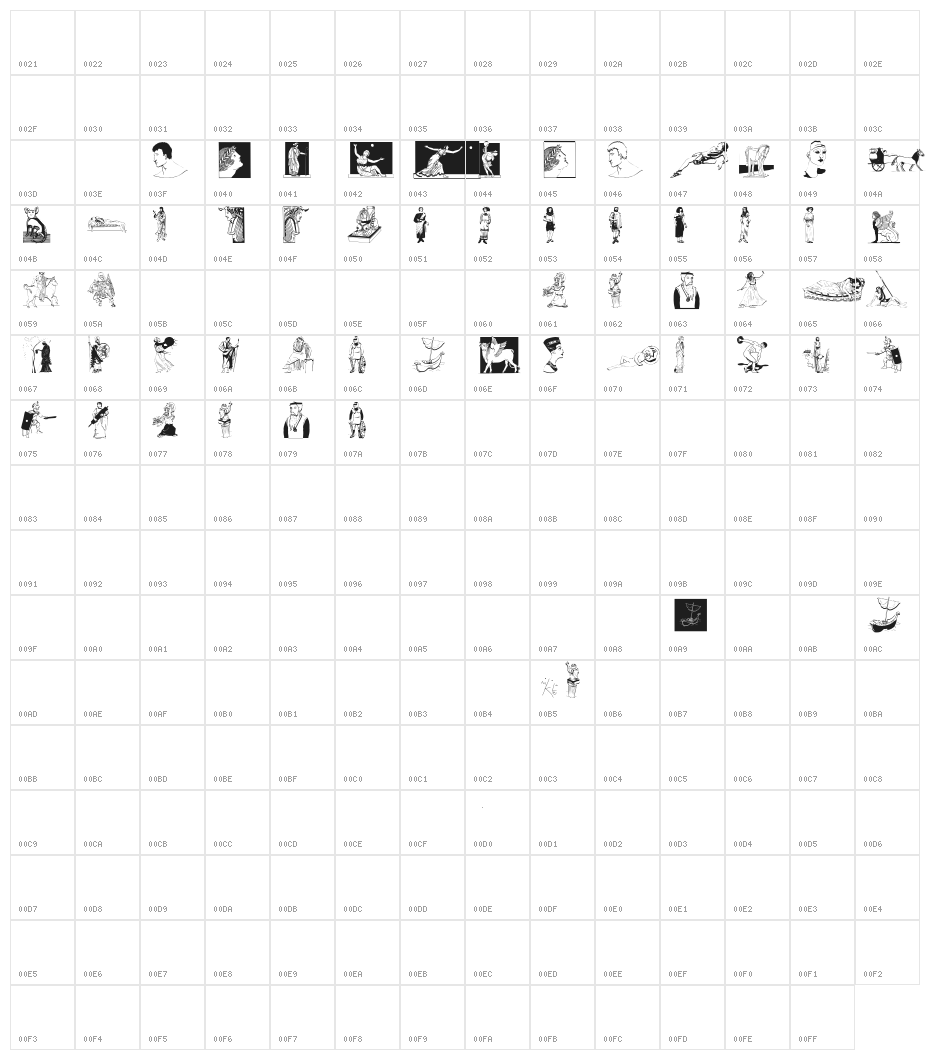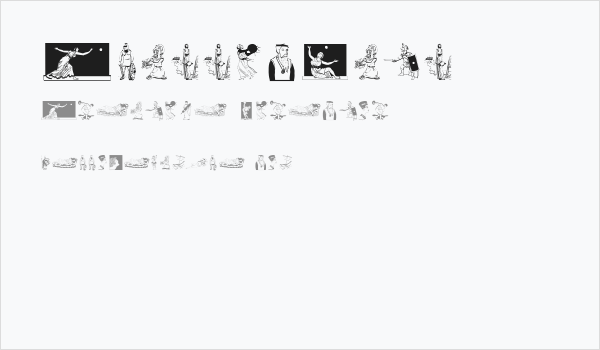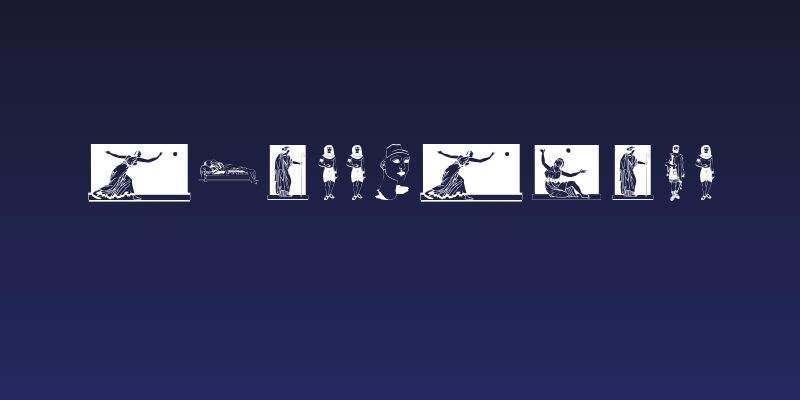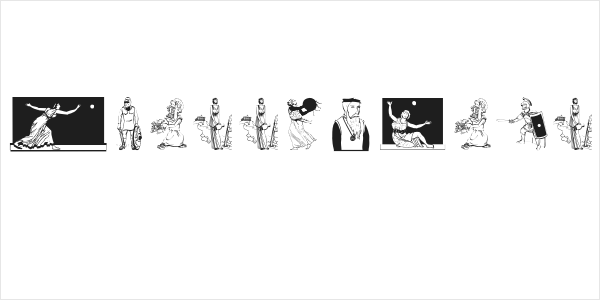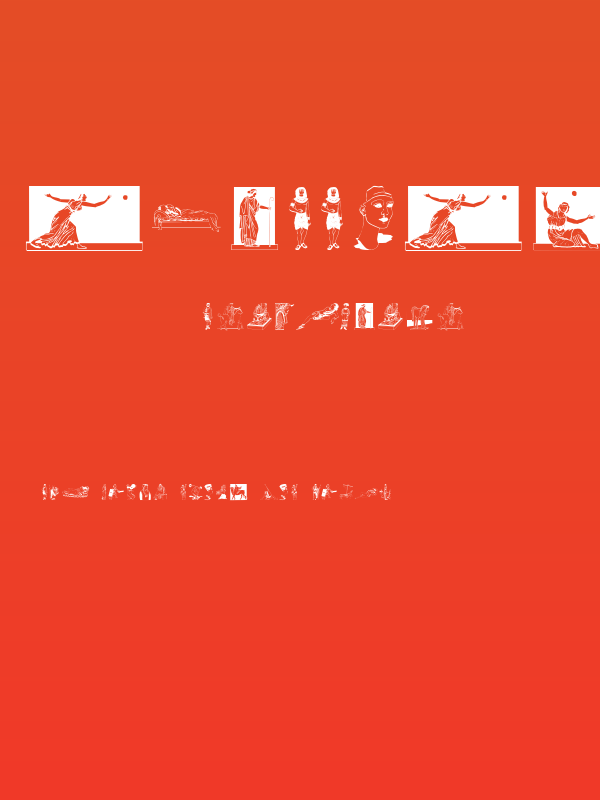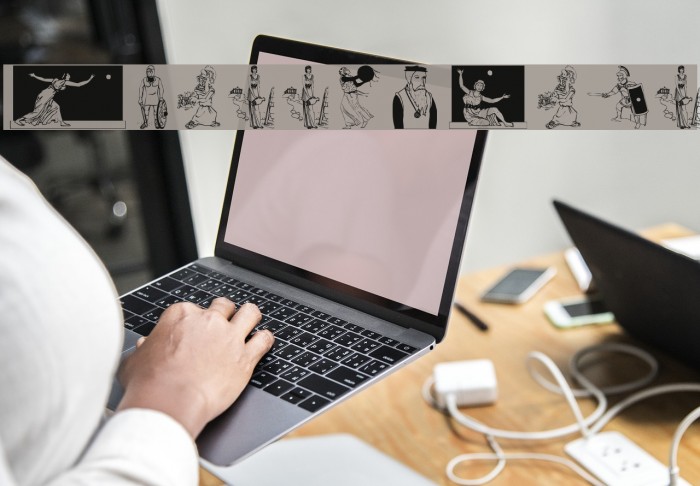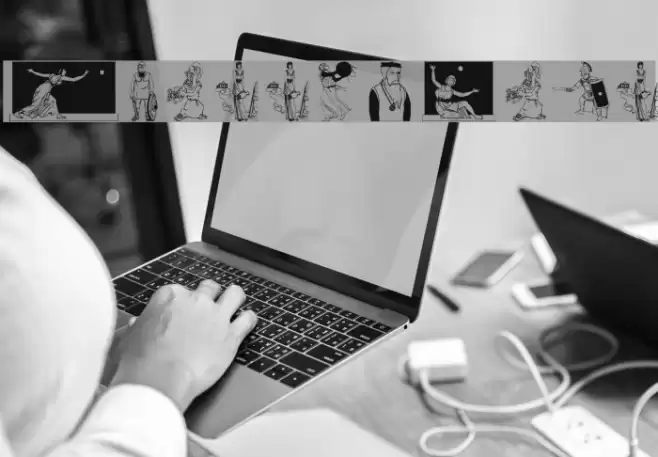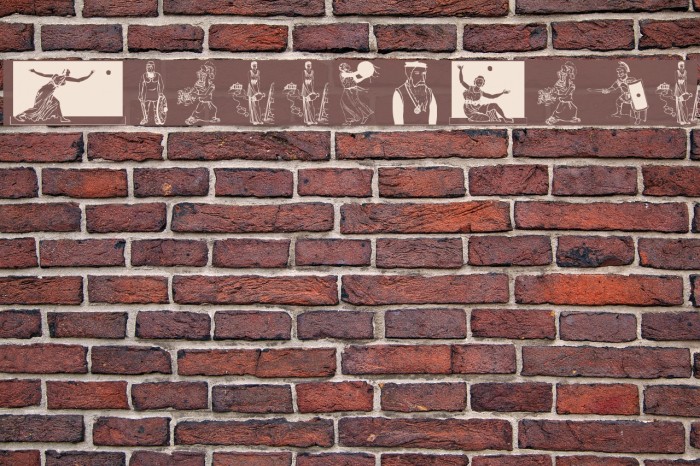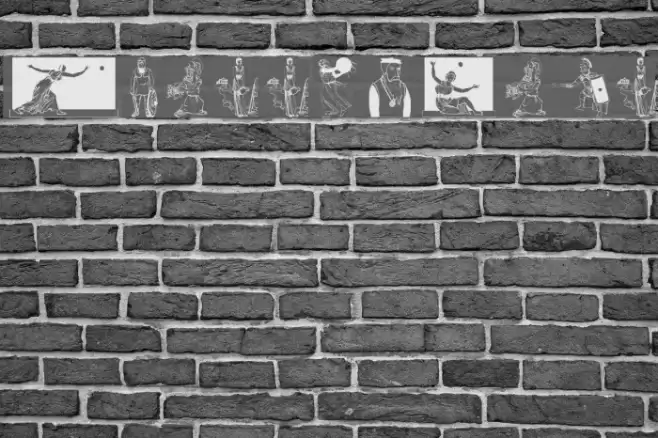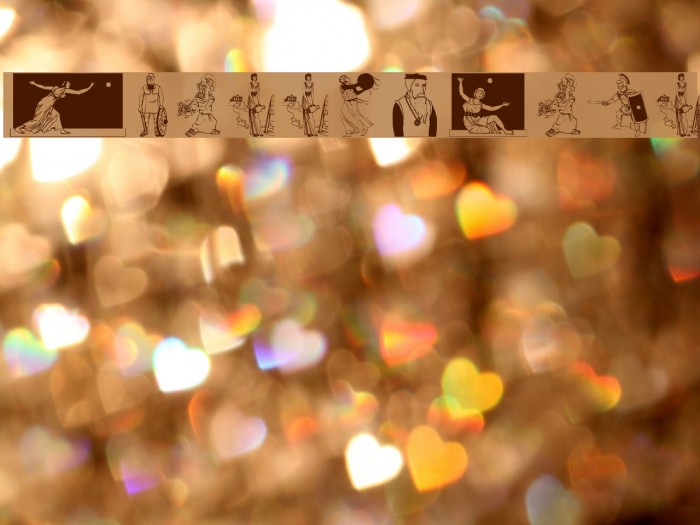
ClassicBats Font
This is not a traditional font but rather a collection of decorative illustrations inspired by classical art and mythology. Each character is represented by a unique image depicting scenes or figures from ancient history, mythology, or classical art. The images are detailed and intricate, capturing the essence of classical themes with a modern illustrative style. This set is ideal for projects that require a touch of historical or mythological flair, providing a visual narrative rather than textual communication.
| Use Case | Artistic projects, educational materials, themed designs. |
| Proposed Projects | Ideal for themed invitations, educational materials, historical presentations, or artistic projects that require classical imagery. |